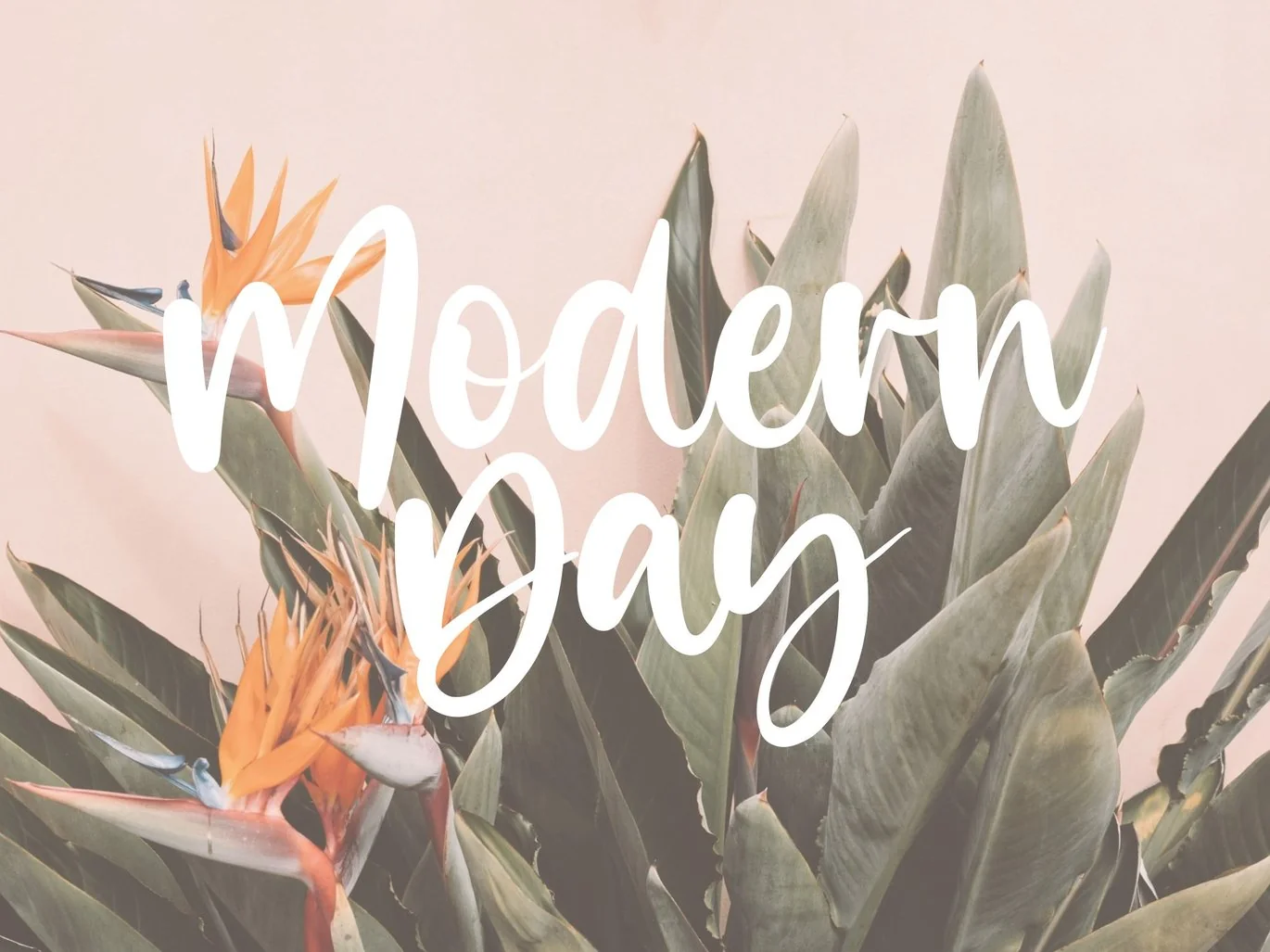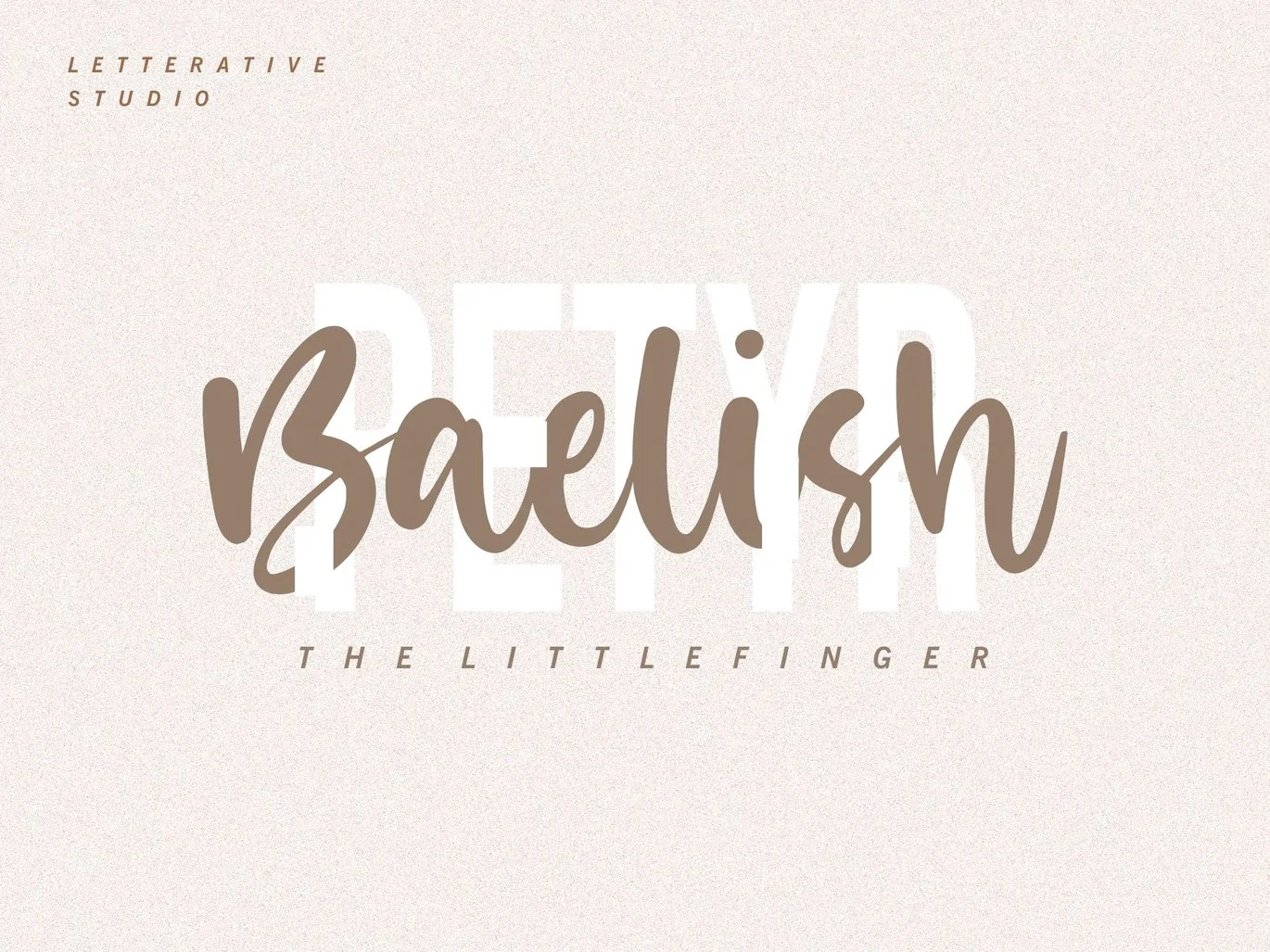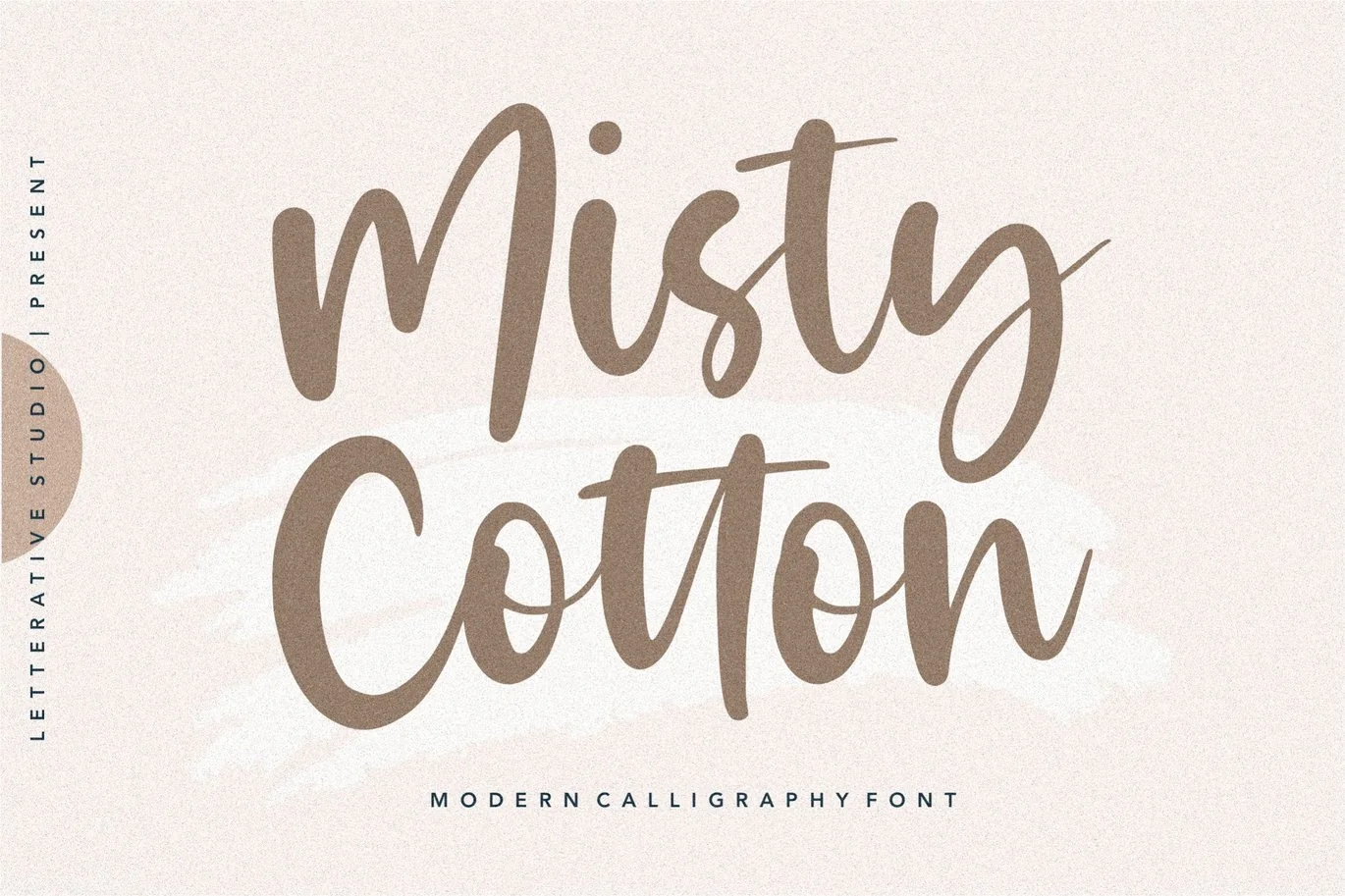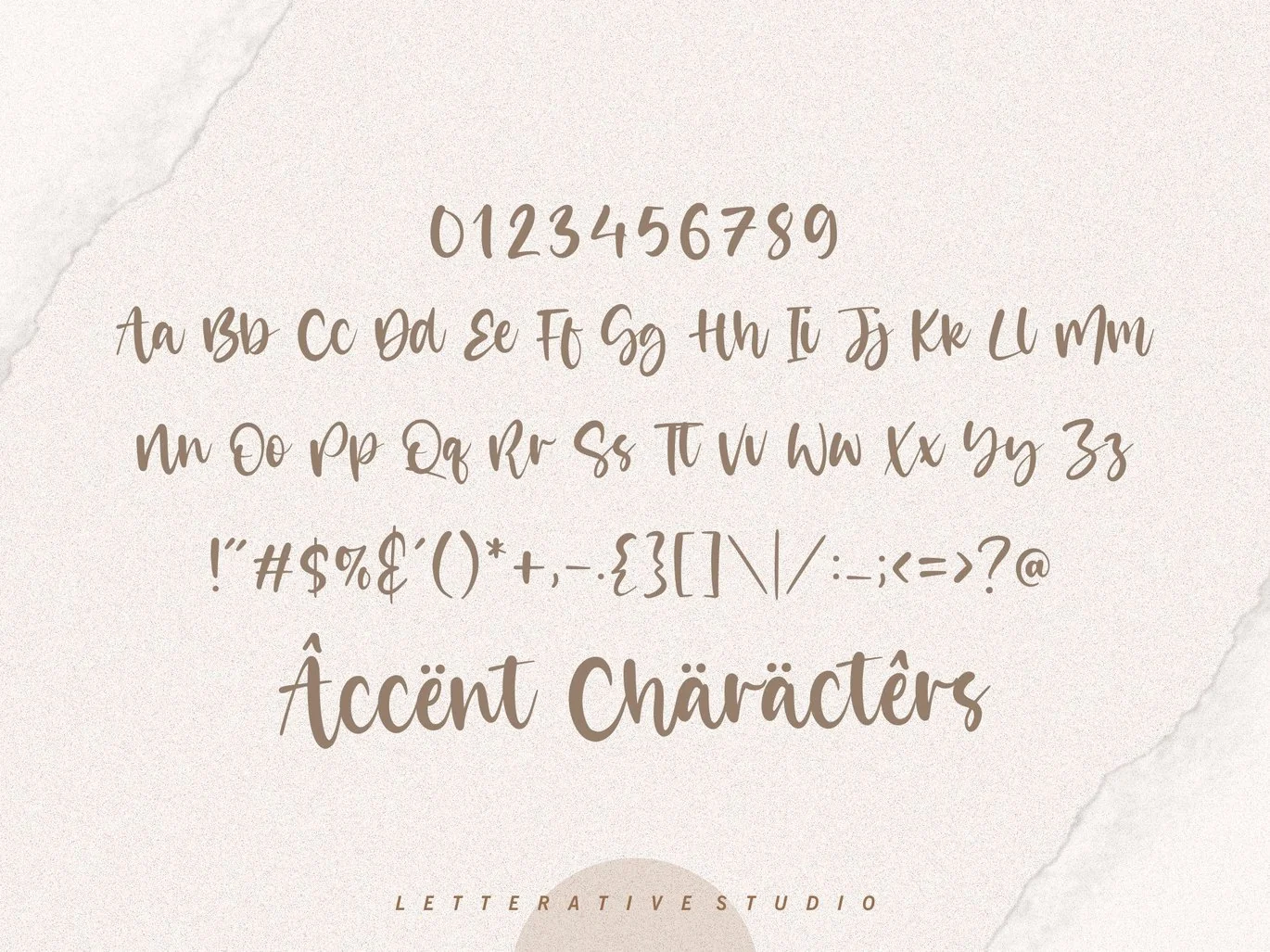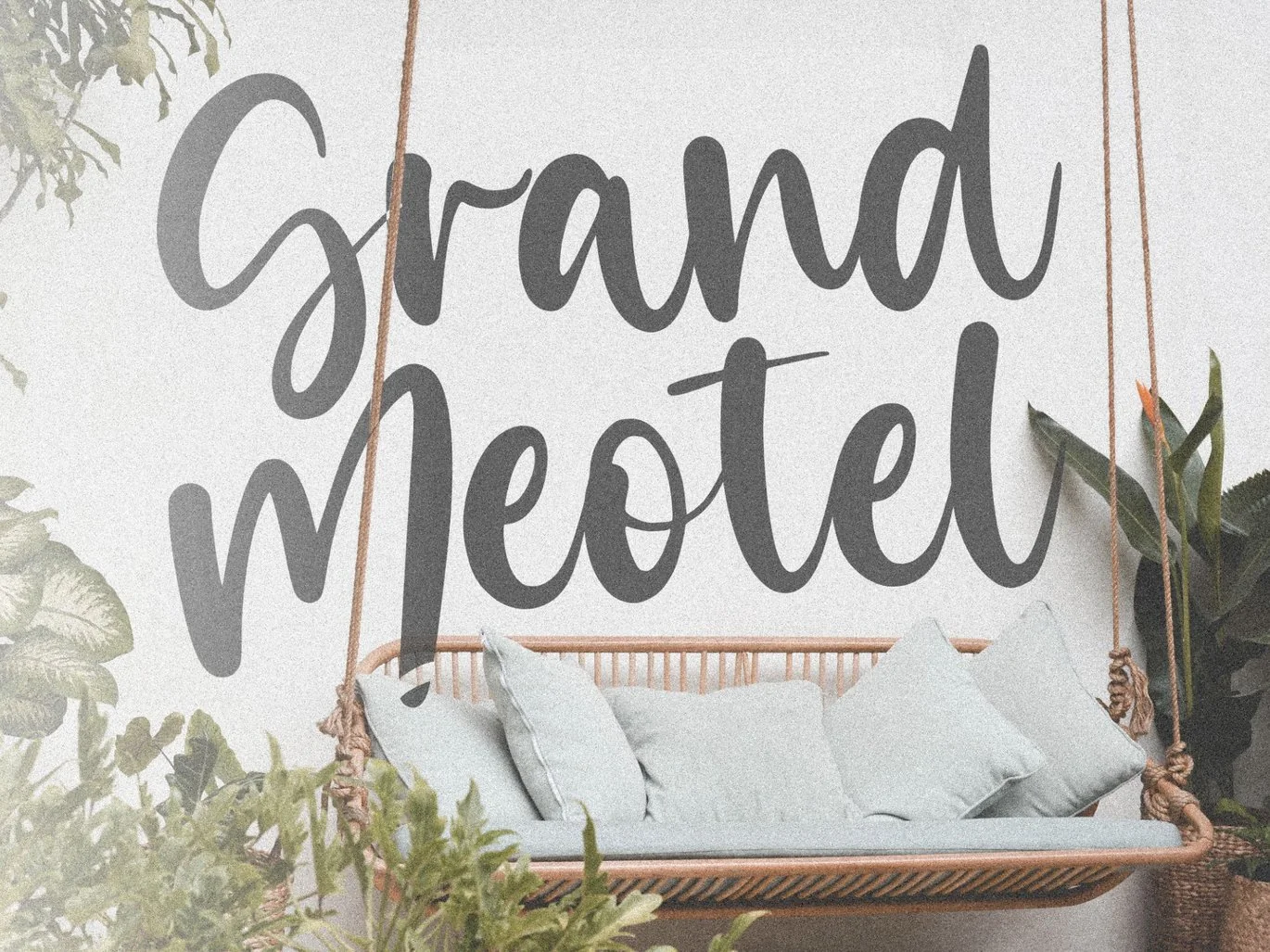
Misty Cotton – Modern Calligraphy Logo Font
Introducing by Letterative Studio : Misty Cloud Font
Misty Cloud is a Modern Calligraphy Font
Misty Cloud is perfect for product packaging, branding project, megazine, social media, wedding, or just used to express words above the background.
Misty Cloud also multilingual support